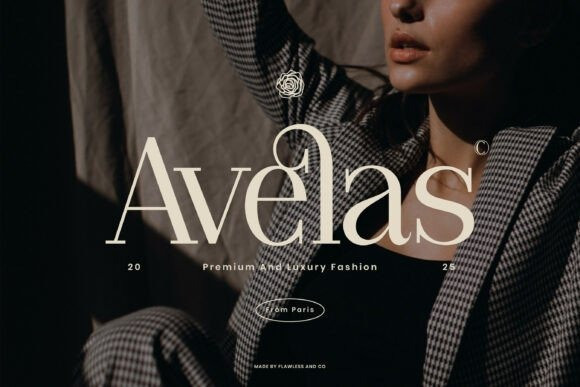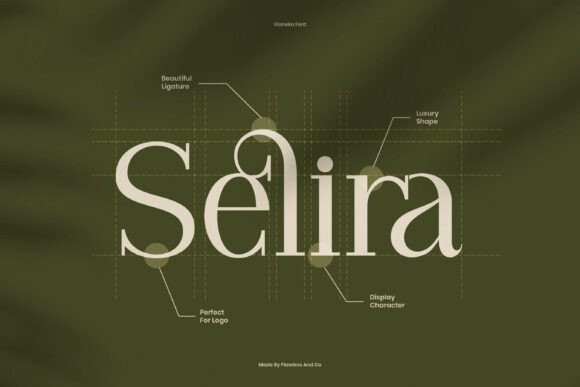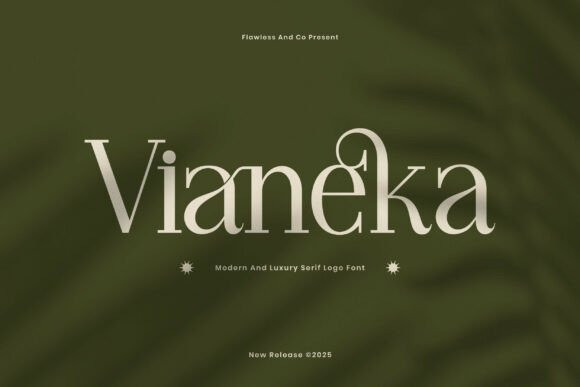
Vianeka Font is a modern luxury serif font that exudes elegance, sophistication, and timeless style. Designed with graceful curves and refined letterforms, it brings a high-end aesthetic to any design project. Perfect for branding, logo design, invitations, packaging, fashion, and editorial layouts.